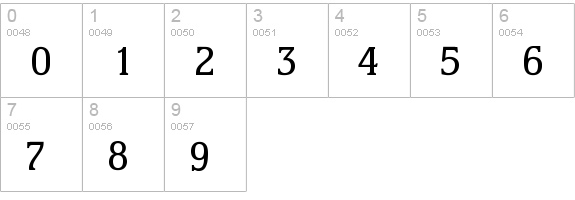
Marbrook Book Font Details
Marbrook Book is a comfortable, highly readable variant in the Marbrook typeface family \xE2\x80\x94 well suited to long-form body text, articles, and editorial content.
Introducing the exquisite Marbrook Book font – a true masterpiece in the world of typography. With its elegant and sophisticated design, Marbrook Book is sure to captivate the hearts of designers and typographers alike. This font effortlessly combines classic elements with a contemporary twist, resulting in a harmonious blend of timeless beauty and modern flair. Crafted with meticulous attention to detail, Marbrook Book features clean and balanced letterforms that exude a sense of refinement and grace. The carefully sculpted serifs add an air of sophistication, while the generous x-height ensures excellent legibility across various design projects. Whether it's for branding, editorial design, or any other creative endeavor, Marbrook Book is guaranteed to elevate your work to new heights. One of the most remarkable aspects of Marbrook Book is that it is free. Yes, you read that right – this extraordinary font is freely available to download at FontsMarket.com. So, not only will you be able to enhance your designs with a truly exceptional typeface, but you can also do so without any financial burden. This makes Marbrook Book an invaluable asset for both seasoned professionals and aspiring designers who are looking to create stunning visuals without breaking the bank. Downloading Marbrook Book from FontsMarket.com is a breeze. With just a few clicks, you can have this remarkable font at your fingertips, ready to unleash its creative potential. Its extensive character set, including uppercase and lowercase letters, numerals, punctuation marks, and multilingual support, ensures versatility and compatibility across various design applications and languages. In conclusion, Marbrook Book font is a true gem among typefaces, combining timeless elegance with modern sophistication. Its availability as a free download on FontsMarket.com makes it an irresistible choice for designers seeking to elevate their work without compromising on quality or budget. So why wait? Download Marbrook Book today and embark on a journey of typographic excellence.